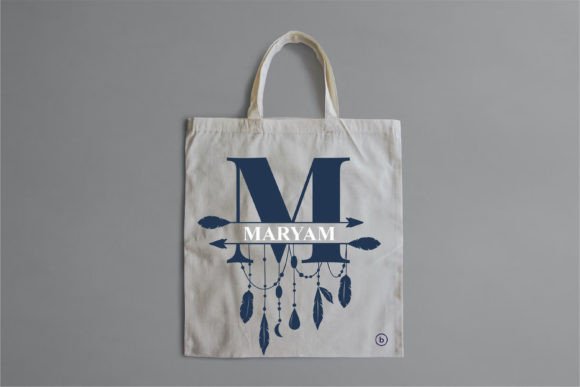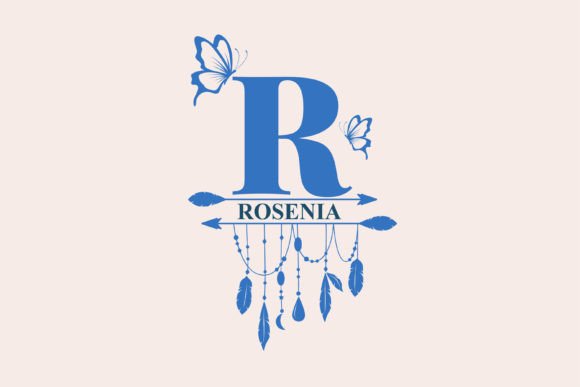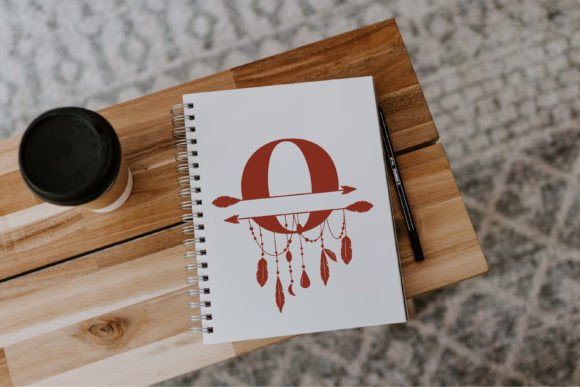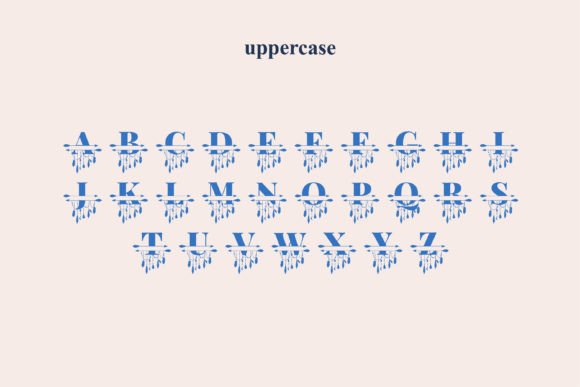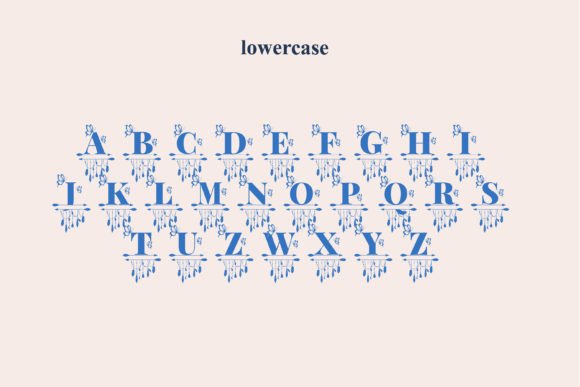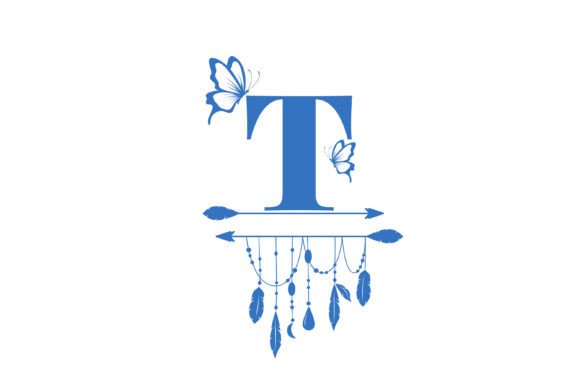
Dream Fly Font: Elevate Your Designs with a Touch of Bohemian Elegance
Are you on the lookout for a font that can add a unique and bohemian flair to your design projects? Look no further than the Dream Fly Font. This beautiful decorative font is charming, elegant, and perfect for designers and crafters who want to infuse their work with a special touch.
What is Dream Fly Font?
Dream Fly Font is a decorative typeface that boasts a distinctive and eye-catching style. Its unique bohemian feel makes it an excellent choice for designers who want to create visually stunning and memorable designs. Whether you’re working on a branding project, crafting a social media graphic, or designing a wedding invitation, Dream Fly Font is sure to make your work stand out.
Key Features of Dream Fly Font
- Unique and Bohemian Style: Dream Fly Font features a one-of-a-kind design that is both bohemian and elegant. Its distinctive style is sure to add a touch of personality to your designs.
- Charming and Elegant: The font’s charming and elegant appearance makes it perfect for a wide range of design projects, from wedding invitations to branding materials.
- Highly Versatile: Dream Fly Font can be used for a variety of design projects, including digital and print materials.
How to Use Dream Fly Font in Your Designs
Using Dream Fly Font in your designs is easy. Here are a few tips to get you started:
- Pair it with Other Fonts: Dream Fly Font pairs well with other fonts, including sans-serif and serif fonts. Experiment with different font combinations to find the perfect look for your design.
- Use it for Headings and Titles: The font’s decorative style makes it perfect for headings and titles. Use it to add a touch of elegance and sophistication to your designs.
- Add it to Your Branding Materials: Dream Fly Font is a great addition to any branding project. Use it to create a unique and memorable brand identity.
Benefits of Using Dream Fly Font
There are many benefits to using Dream Fly Font in your designs. Here are a few:
- Adds a Touch of Elegance: The font’s elegant style adds a touch of sophistication to any design.
- Creates a Unique Look: Dream Fly Font’s distinctive style ensures that your designs will stand out from the crowd.
- Perfect for Bohemian-Inspired Designs: The font’s bohemian feel makes it perfect for designers who want to create bohemian-inspired designs.
Tips and Tricks for Getting the Most Out of Dream Fly Font
Here are a few tips and tricks for getting the most out of Dream Fly Font:
- Experiment with Different Sizes and Colors: Experiment with different sizes and colors to find the perfect look for your design.
- Use it in Combination with Other Design Elements: Dream Fly Font pairs well with other design elements, such as images and graphics. Use it in combination with other elements to create a visually stunning design.
- Don’t Be Afraid to Get Creative: Don’t be afraid to get creative and try new things. Dream Fly Font is a versatile font that can be used in a wide range of design projects.
Dream Fly Font is a beautiful decorative font that is perfect for designers and crafters who want to add a touch of bohemian elegance to their designs. Its unique and charming style makes it an excellent choice for a wide range of design projects. So why wait? Download Dream Fly Font today and start creating stunning designs that will leave a lasting impression.